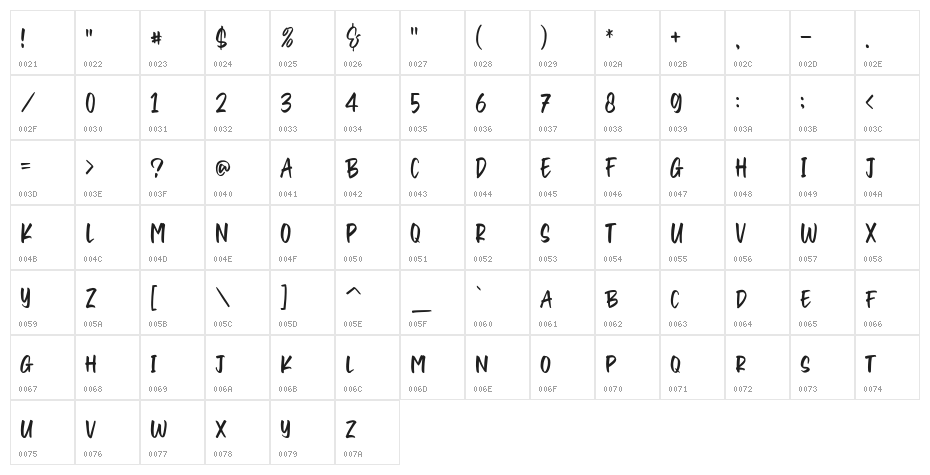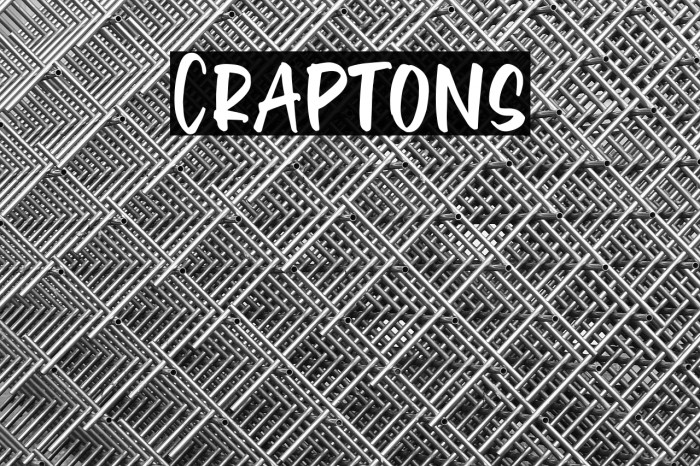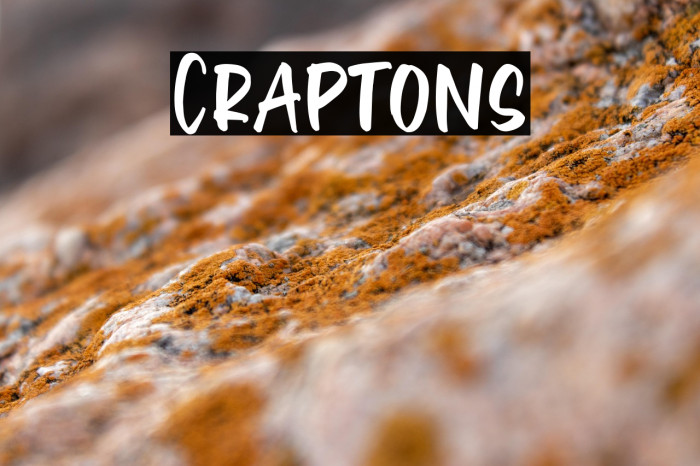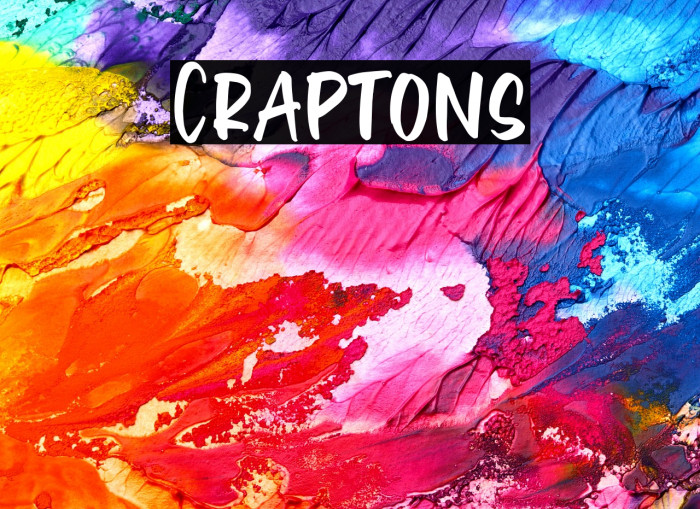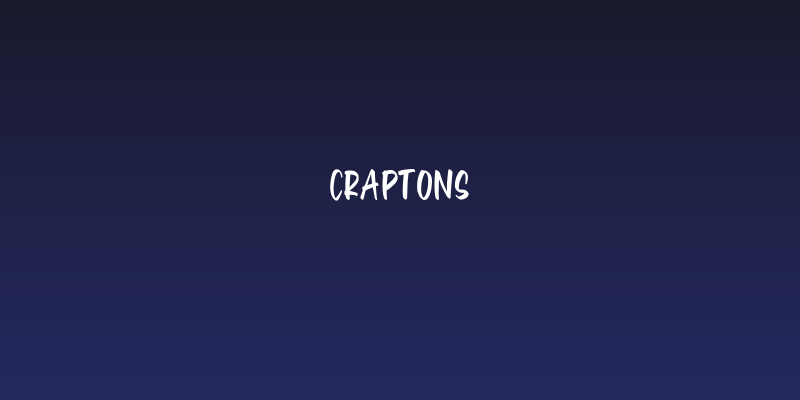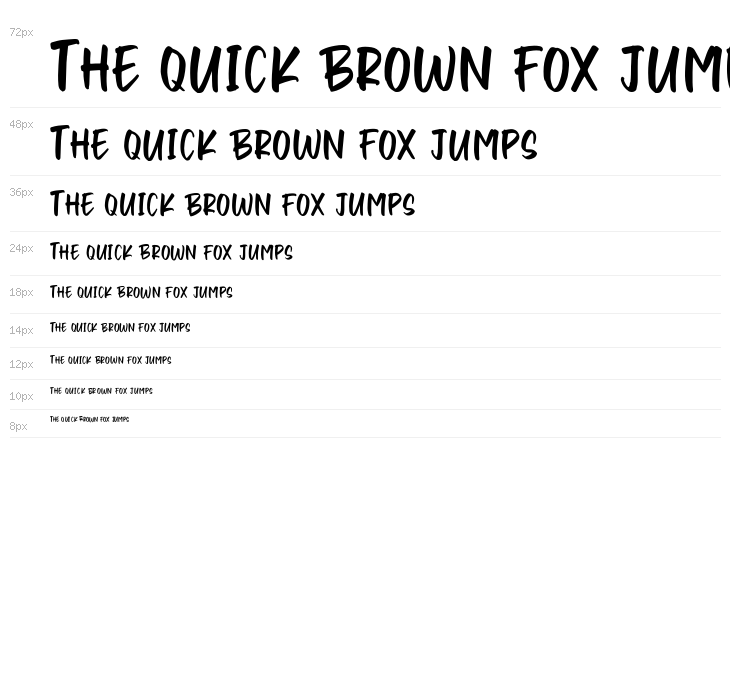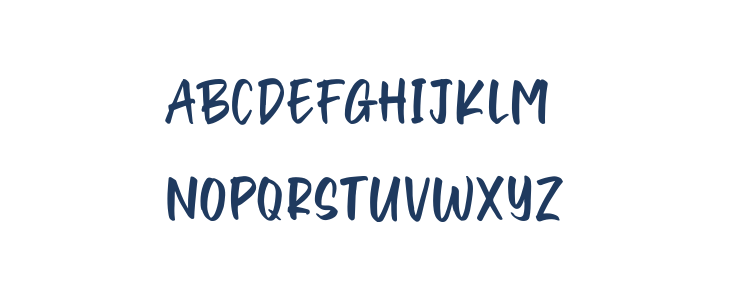
Craptons Font
Craptons Description
This font features a bold, handwritten style with a playful and energetic appearance. The letters are slightly slanted, giving a casual and informal feel. The strokes are thick and consistent, providing a strong visual impact. The uppercase and lowercase letters maintain a uniform style, with rounded edges and a smooth flow. The numbers and special characters are designed to match the overall aesthetic, ensuring cohesion across all elements. This font is ideal for projects that require a personal touch or a lively, dynamic look.
| Overall Style | Casual, Playful |
| Proposed Projects | Ideal for greeting cards, posters, social media graphics, and branding that requires a personal and lively touch. |